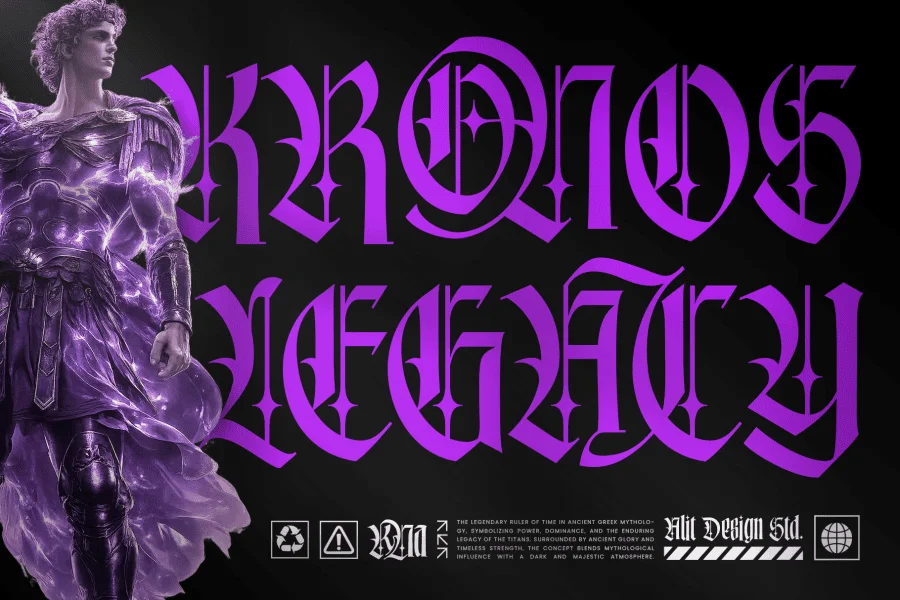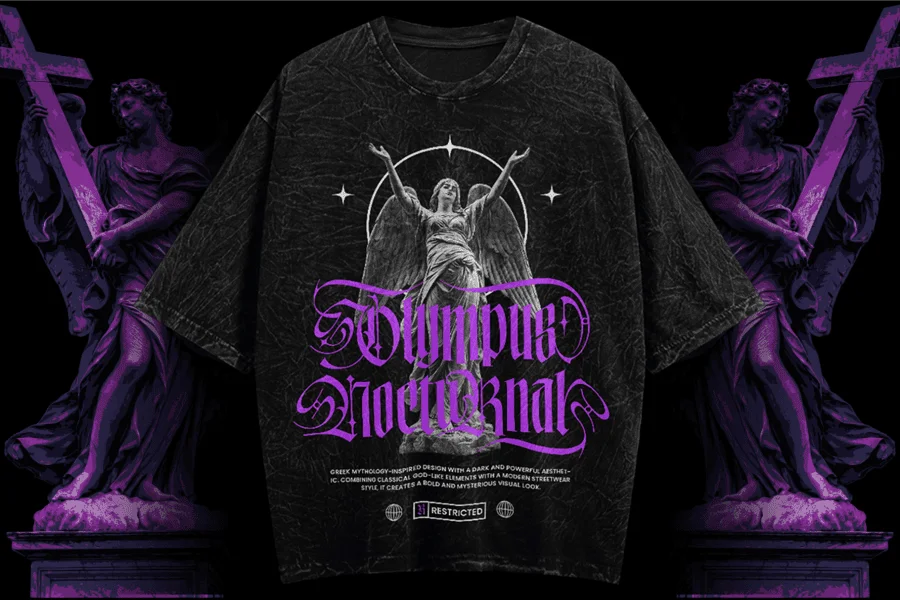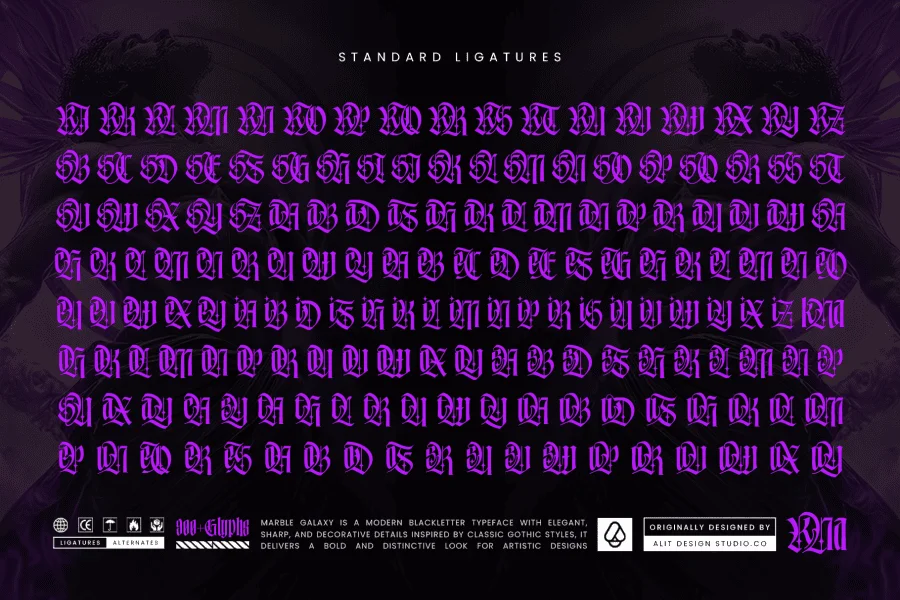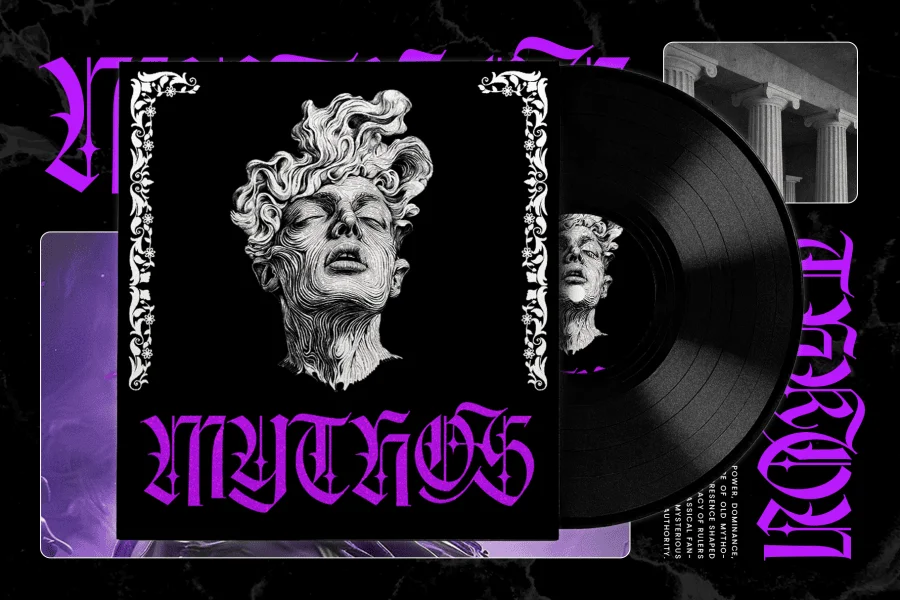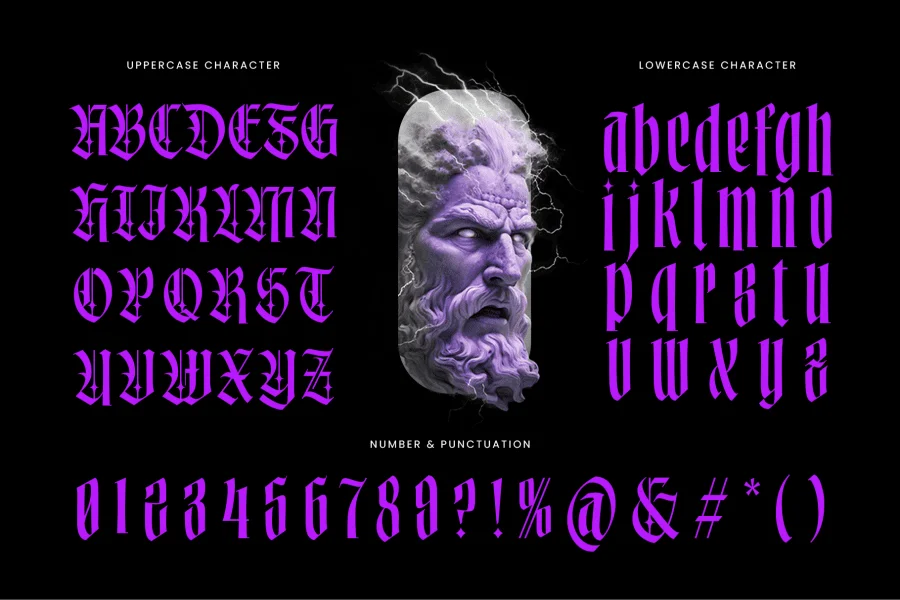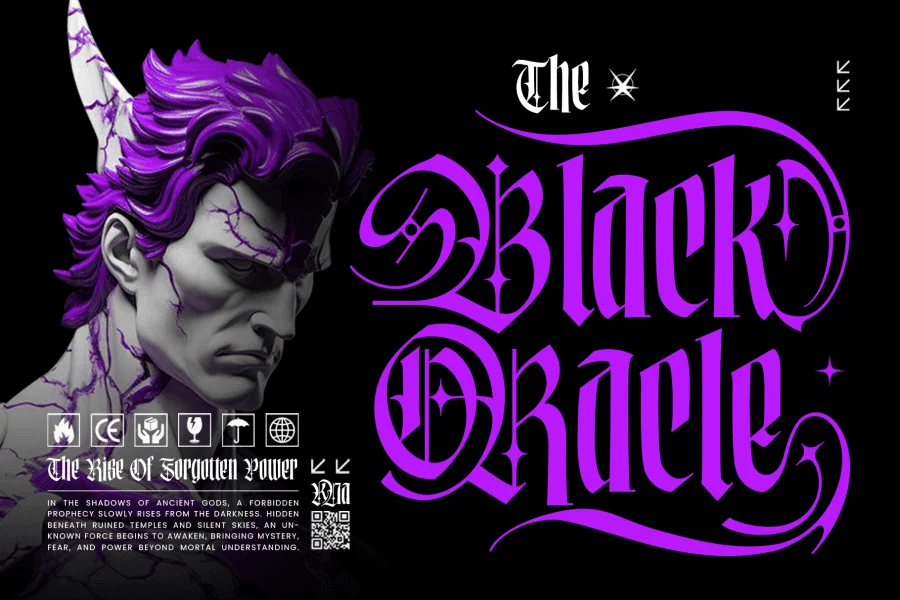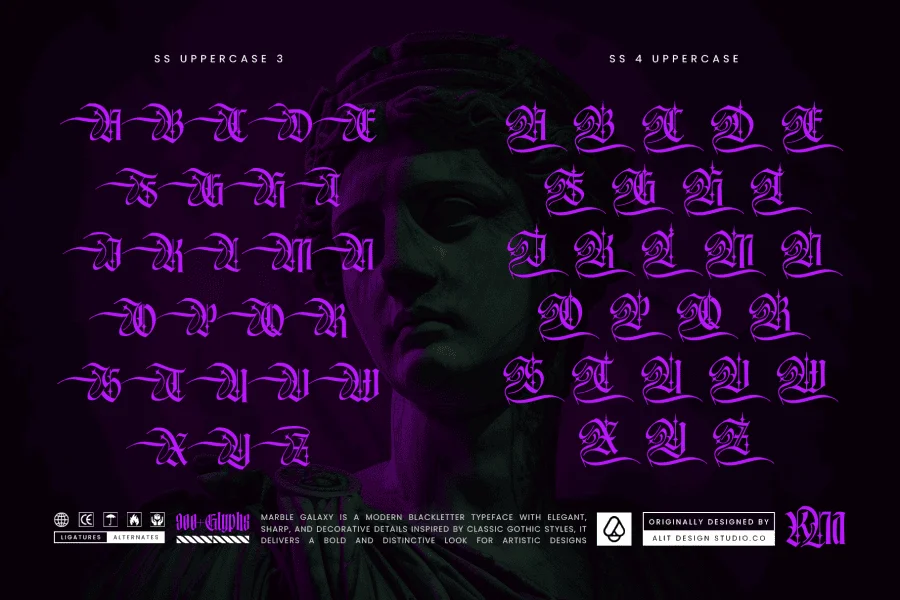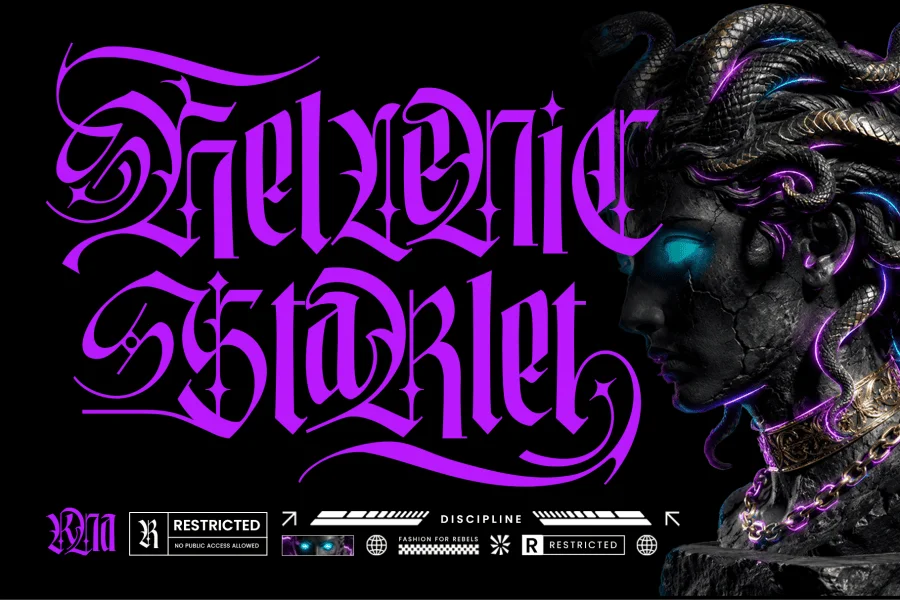
Marble Galaxy – Modern Blackletter Typeface
Unleash a dark, powerful, and majestic aesthetic with Marble Galaxy, a modern blackletter typeface designed to bridge the gap between classic Gothic drama and contemporary streetwear culture. Inspired by the timeless elegance of classical Greek mythology and the raw energy of modern design, this font delivers a bold, distinctive, and deeply mysterious visual impact.
With an impressive library of over 900+ glyphs, Marble Galaxy is a true powerhouse for typographic exploration. It is packed with intricate ligatures, dramatic swashes, and highly decorative alternate characters that allow you to seamlessly customize every single word. Whether you want a clean, sharp look or a chaotic, swirling composition of elegant details, this typeface gives you ultimate creative freedom.